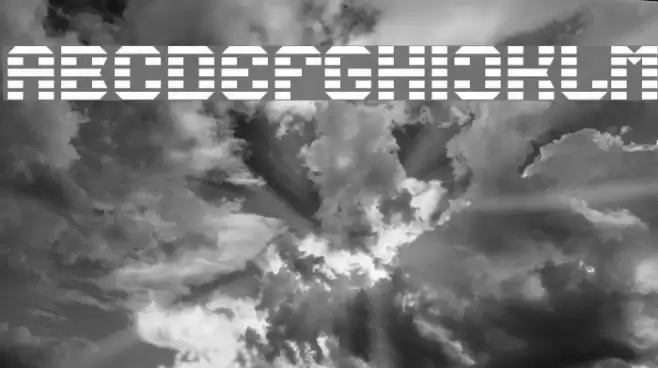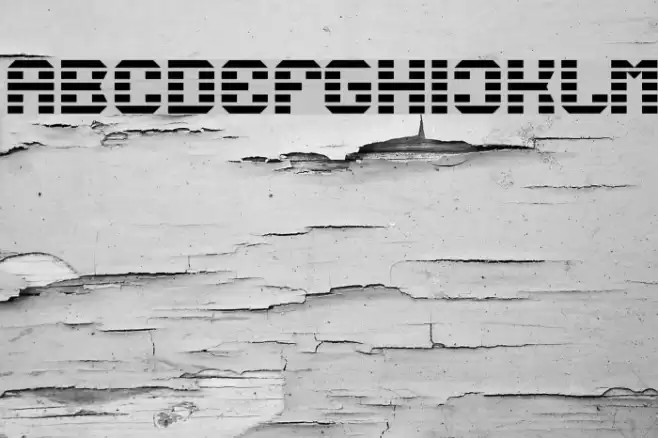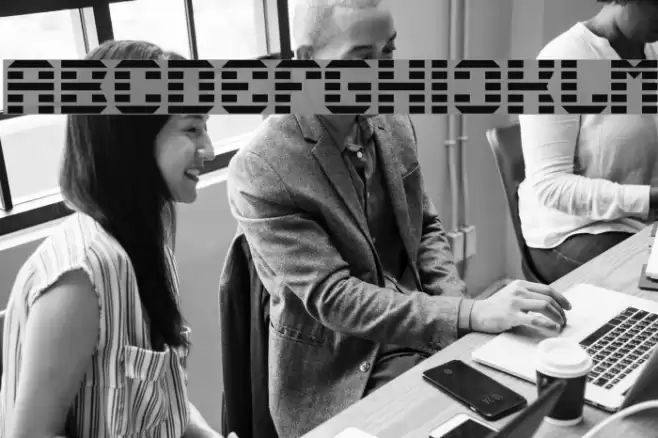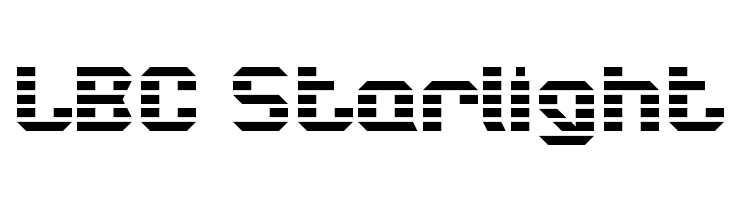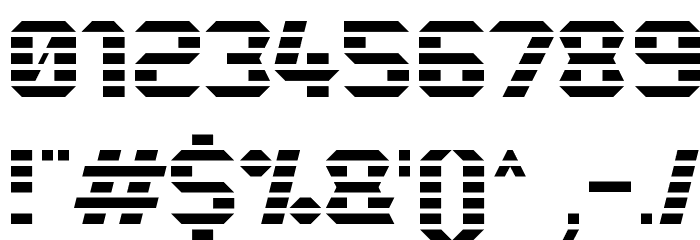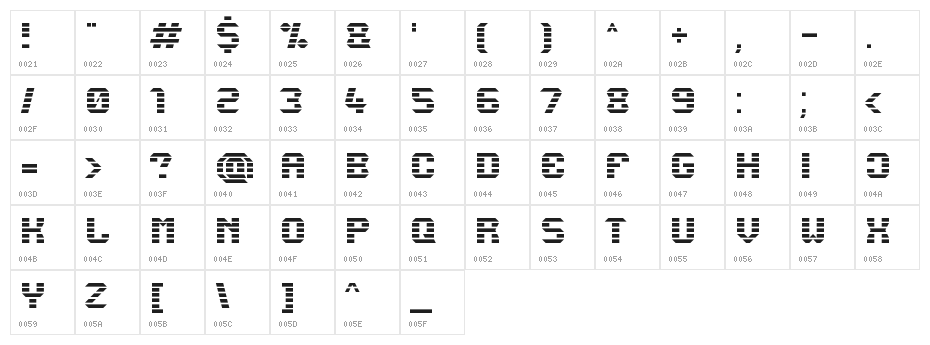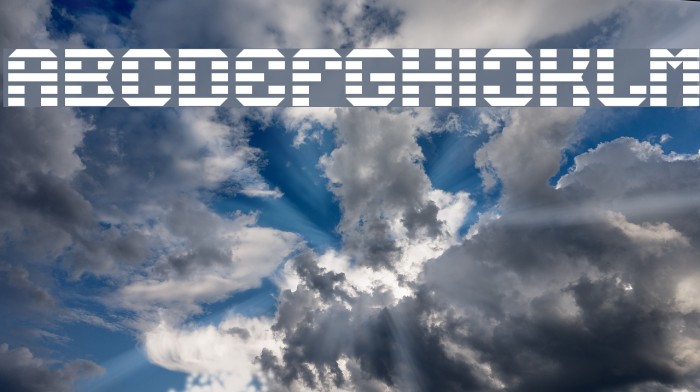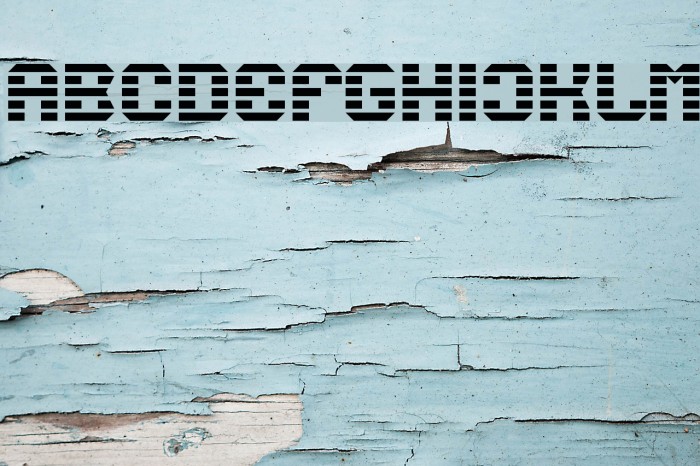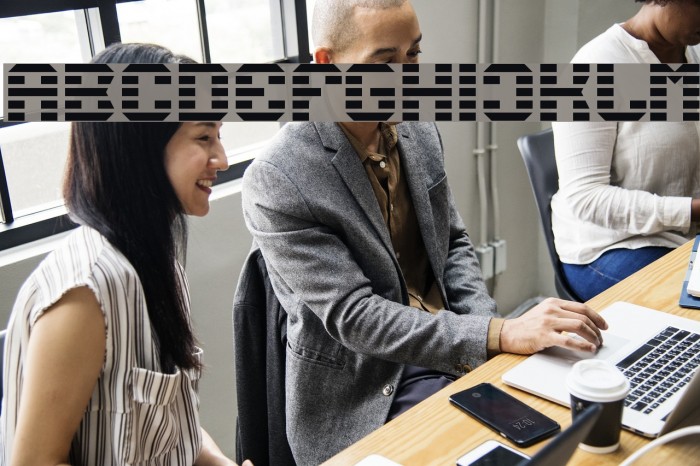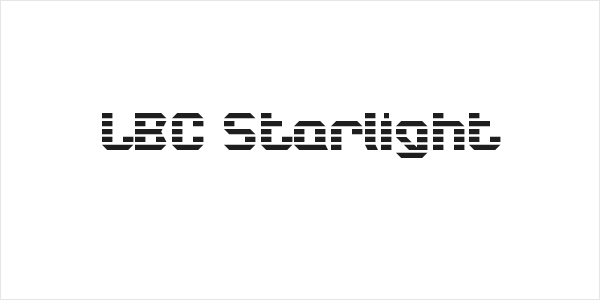
LBC Starlight Font
LBC Starlight Description
This font features a bold, geometric design with a distinct striped pattern running horizontally through each character. The uppercase and lowercase letters maintain a consistent width, creating a uniform appearance. The numerals and special characters follow the same design principles, ensuring a cohesive look across all elements. The font's unique style is both modern and futuristic, making it stand out in any design project. Its boldness and distinctive pattern make it ideal for attention-grabbing headlines or logos.
A bold, geometric font with a striped, futuristic design from Uncategorized fonts.
- Proposed Projects: Ideal for modern branding, futuristic posters, tech-related designs, and eye-catching headlines.
- Overall Style: Futuristic, Modern